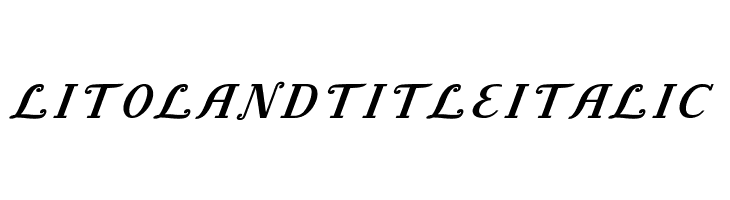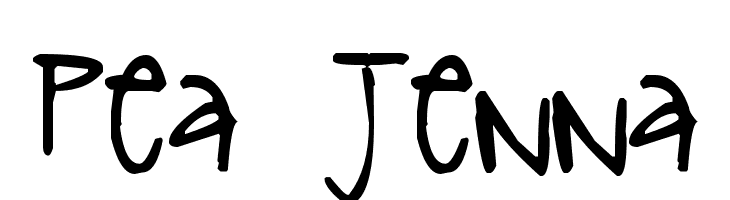
An elegant italic serif font with smooth curves and a classic style.
A bold, decorative font with outlined, three-dimensional characters.
Elegant, decorative script font with flowing lines.
A bold, angular font with a dynamic slant and sharp edges.
A playful, hand-drawn font with a textured, scribble-like appearance.
A modern sans-serif font with clean lines and balanced proportions.
A modern, geometric font with a blend of sharp angles and cursive elements.
A bold, italicized serif font with a dynamic and modern style.
A bold, playful font with a hand-drawn, textured style.
A modern, extended sans-serif font with a bold and clean appearance.